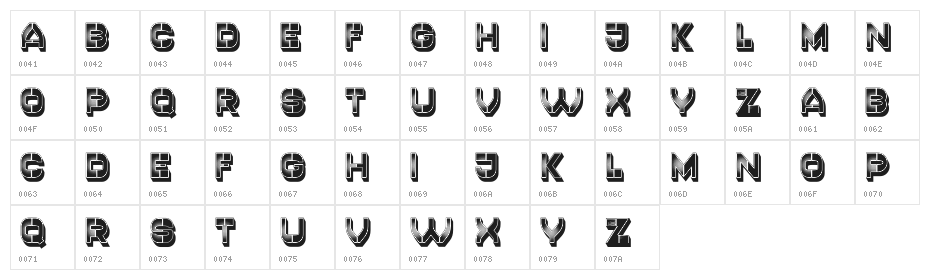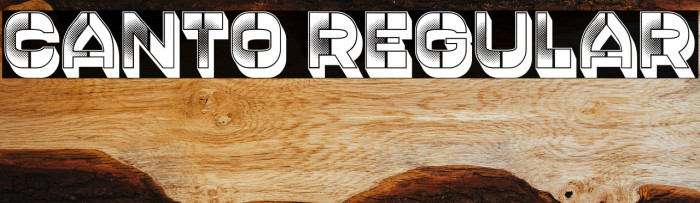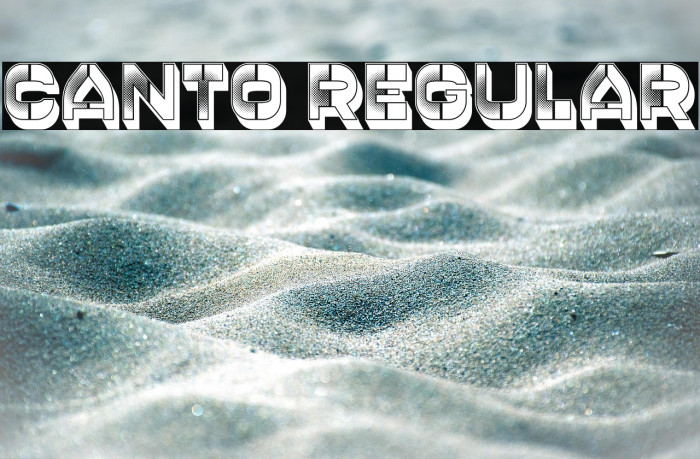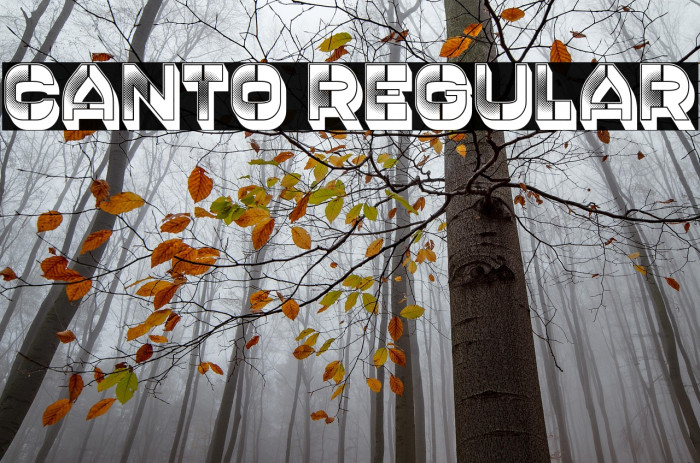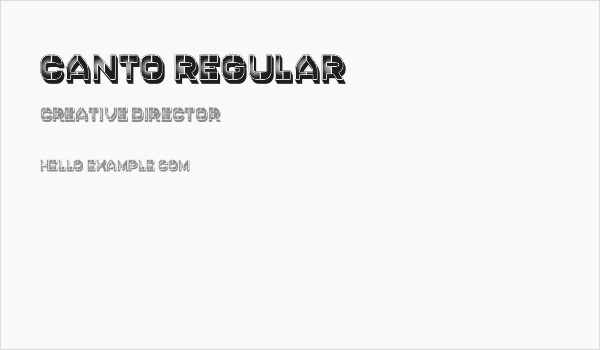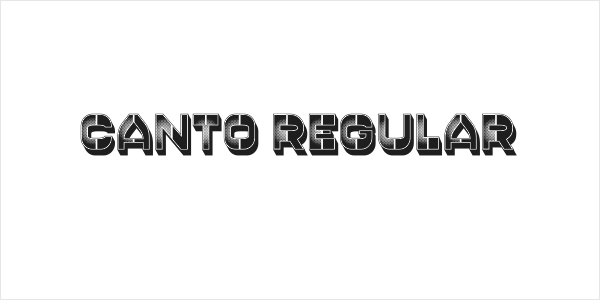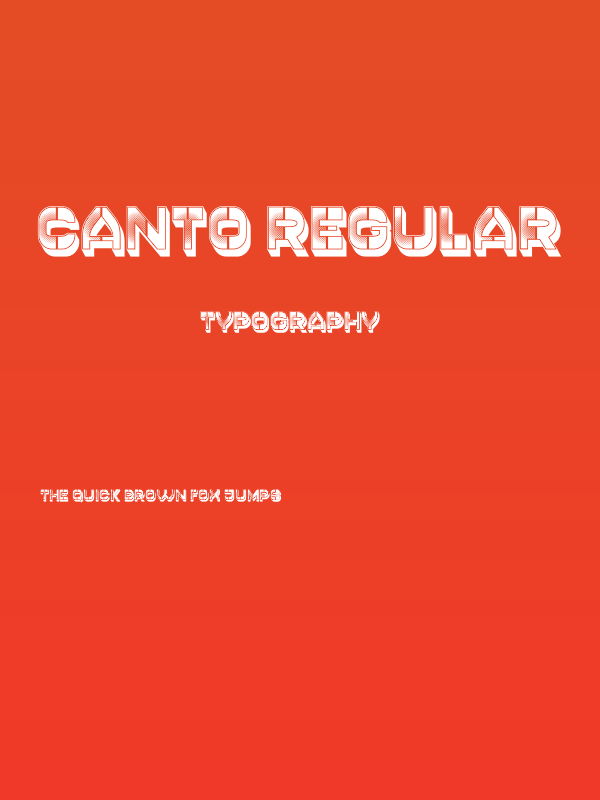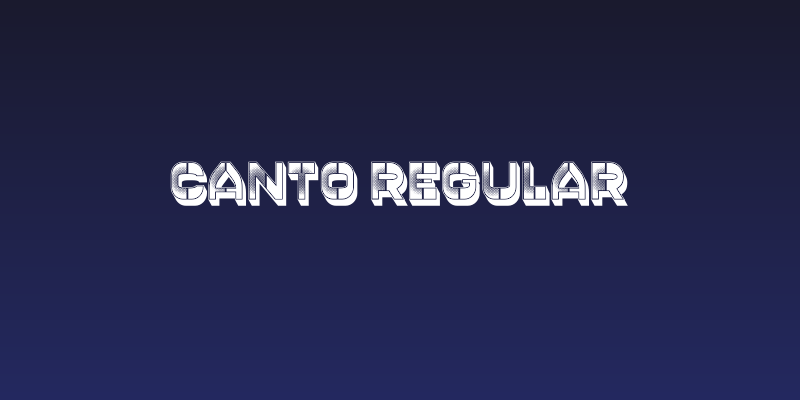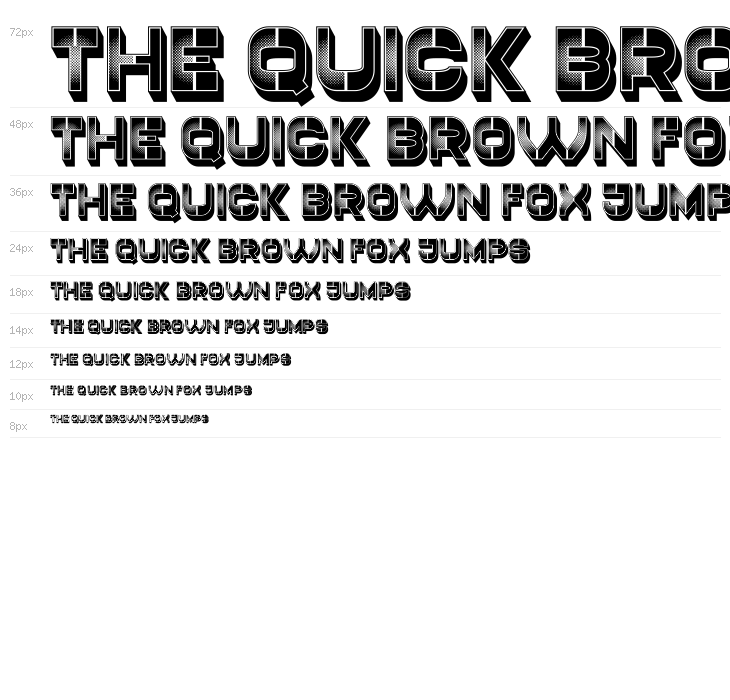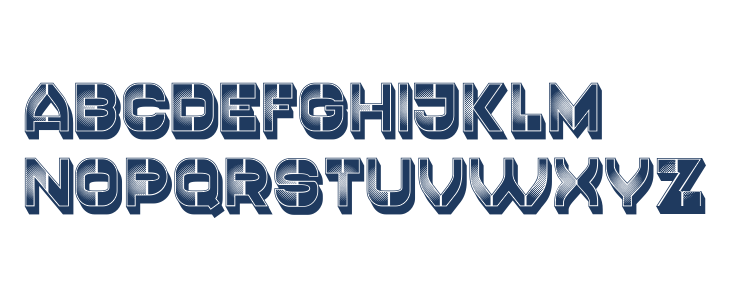
Canto Regular Font
Canto Regular Description
This font features a bold, three-dimensional design with a striking shadow effect that gives each letter a sense of depth and volume. The characters are uppercase only, with a geometric and angular style that is both modern and eye-catching. The inner part of each letter is filled with a gradient pattern, adding a dynamic texture that enhances the visual impact. The font's strong presence makes it ideal for attention-grabbing headlines or titles. Its unique style is reminiscent of retro-futuristic designs, combining elements of both past and future aesthetics.
| Proposed Projects | Ideal for posters, logos, video game graphics, and any project needing a bold, futuristic look. |